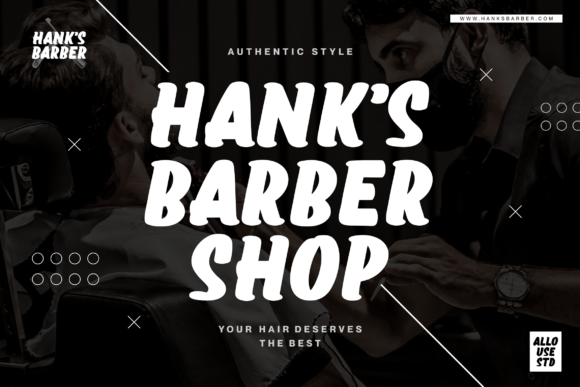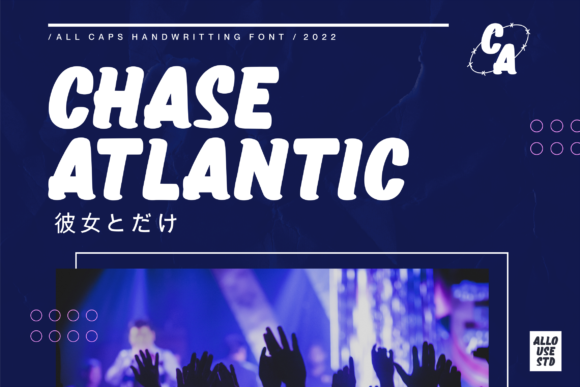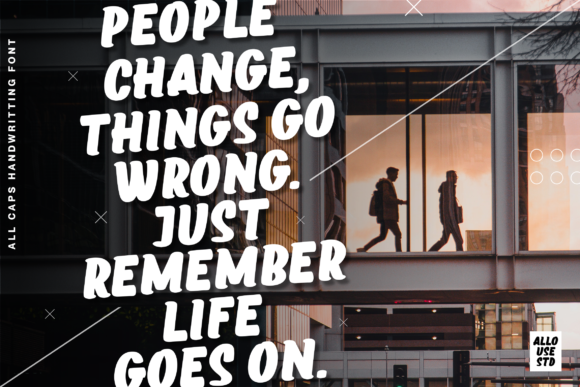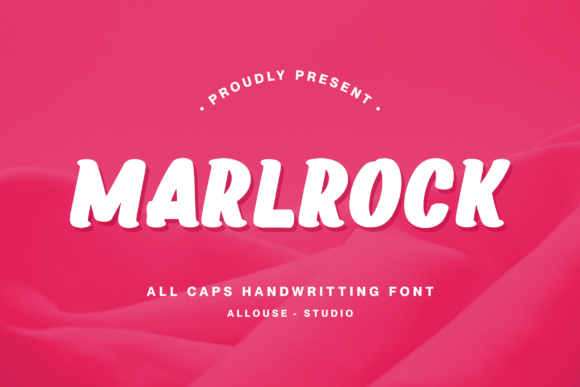
Introduction to Marlrock Font
Marlrock is a cool, bold and assertive display font.
It will look stunning on any food menu, poster, flyer or print Use this font for your designs and explore its endless possibilities.
Key Features of Marlrock Font
Why Choose Marlrock Font?
Marlrock Font offers exceptional quality and versatility, making it a valuable addition to your design toolkit. Whether you’re creating for personal projects or commercial use, Marlrock Font delivers professional results.